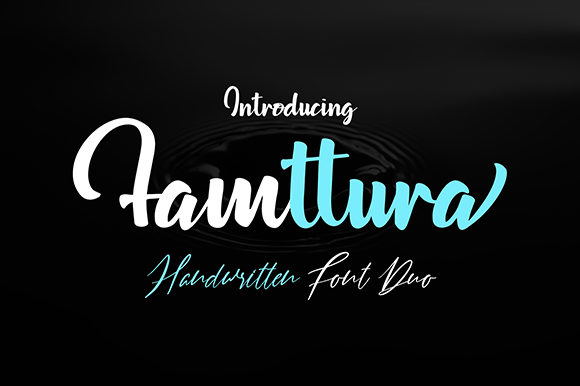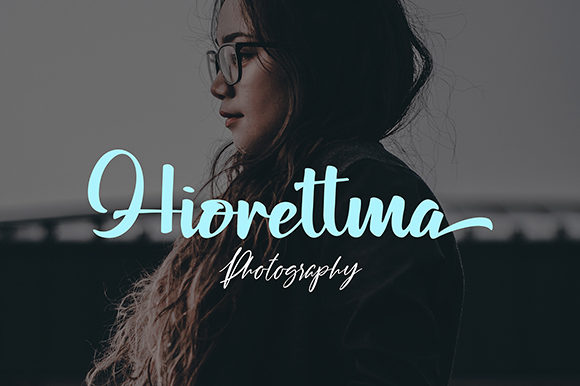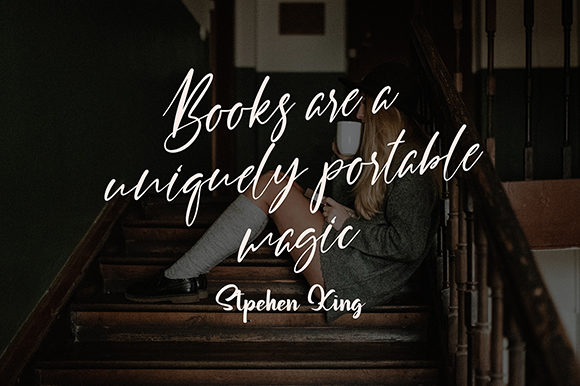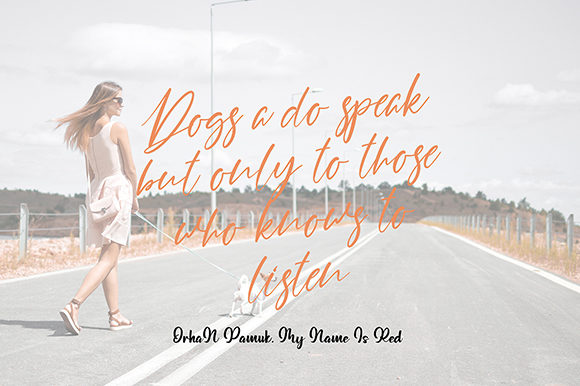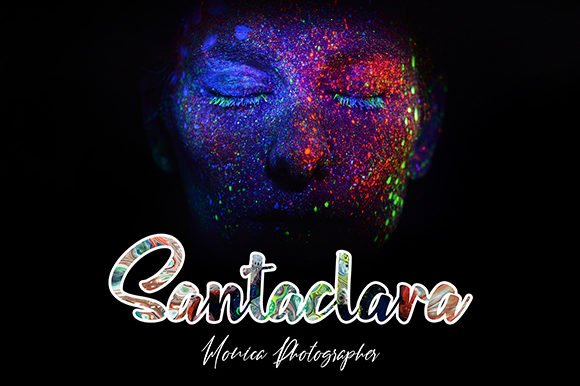
Famttura Font
About Famttura Font
Famttura is a beautiful and bold handwritten font with incredible elements. It will add an elegant touch to any creative project!